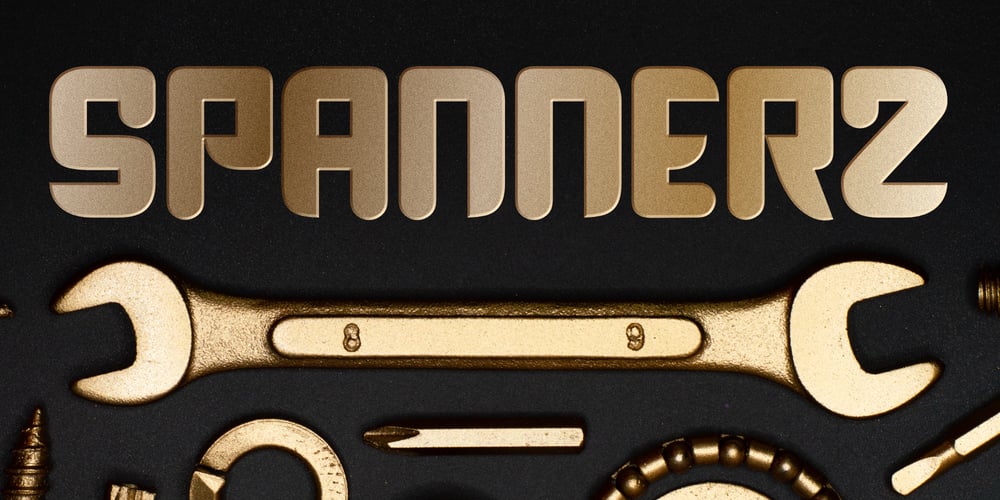
Spannerz Font Family was designed by Michael Kovacevich and published by MKGD. Spannerz contains 1 styles and family package options. Spannerz is a font that is a bit of a chimera. It has the rather machined appearance of tools, particularly wrenches, from which it takes it’s name, but it also possesses the characteristics of fonts used for science fiction, early era computers, and an unusual 1970’s feel found in its soft, somewhat bloated, outer edges.Spannerz has a glyph count of 398 and supports the following languagesAfrikaans, Albanian, Asu, Basque, Bemba, Bena, Bosnian, Catalan, Chiga, Colognian, Cornish, Croatian, Czech, Danish, Embu, English, Esperanto, Estonian, Faroese, Filipino, Finnish, French, Friulian, Galician, German, Gusii, Hungarian, Icelandic, Indonesian, Irish, Italian, Kabuverdianu, Kalaallisut, Kalenjin, Kamba, Kikuyu, Kinyarwanda, Latvian, Lithuanian, Low German, Lower Sorbian, Luo, Luxembourgish, Luyia, Machame, Makhuwa-Meetto, Makonde, Malagasy, Malay, Maltese, Manx, Meru, Morisyen, North Ndebele, Norwegian Bokmål, Norwegian Nynorsk, Nyankole, Oromo, Polish, Portuguese, Romanian, Romansh, Rombo, Rundi, Rwa, Samburu, Sango, Sangu, Scottish Gaelic, Sena, Shambala, Shona, Slovak, Slovenian, Soga, Somali, Spanish, Swahili, Swedish, Swiss German, Taita, Teso, Turkmen, Upper Sorbian, Vunjo, Walser, Zulu